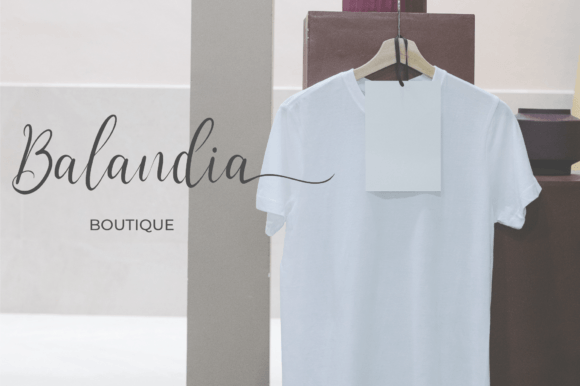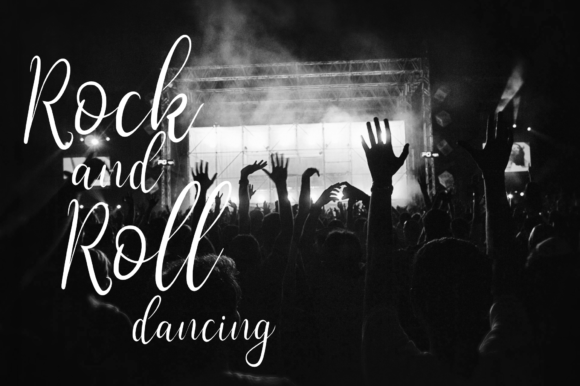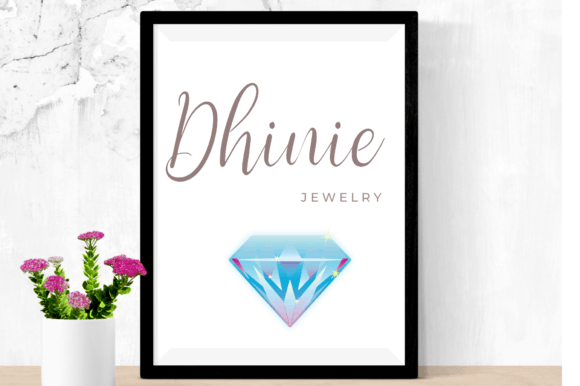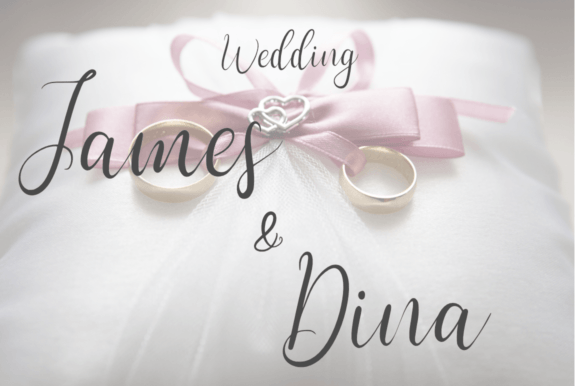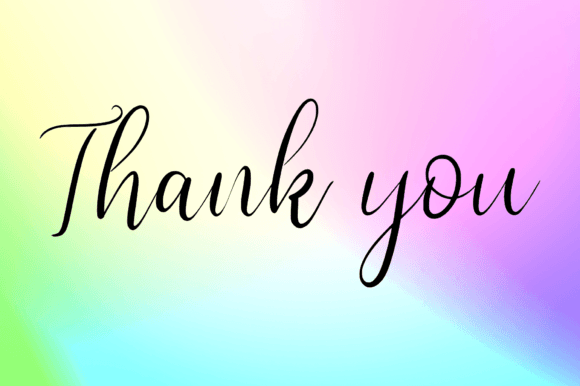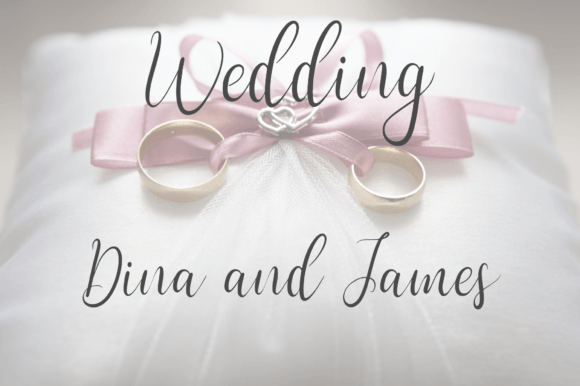
**Introducing Mariana Calligraphy Typeface: Where Modernity Meets Natural Elegance**
Step into the world of timeless elegance with Mariana, a calligraphy typeface that seamlessly blends modern design with the natural beauty of handwritten script. Crafted with meticulous attention to detail, Mariana’s unique form of calligraphy captures a sense of authenticity, making it perfect for a myriad of creative projects that crave a touch of sophistication.
**Natural Handwriting, Modern Design:**
Mariana stands out for its natural handwriting style that effortlessly merges with a modern design aesthetic. The flowing strokes and unique forms of the calligraphy create a sense of authenticity, making it an ideal choice for projects that require a personal and contemporary touch.
**Perfect for Various Creative Projects:**
The versatility of Mariana makes it a go-to choice for various creative projects. Whether you’re designing invitations, crafting logos, working on branding materials, or creating elegant posters, Mariana’s calligraphy adds a layer of refined beauty to your work. It becomes the brushstroke that transforms ordinary designs into extraordinary visual experiences.
**Timeless Elegance in Every Letter:**
Mariana’s calligraphy isn’t just a typeface; it’s a journey into timeless elegance. Each letter is carefully crafted to evoke a sense of grace and sophistication. The natural flow of the script brings a sense of effortlessness, making it visually appealing and captivating.
**Versatile Application:**
From wedding invitations to business cards, Mariana adapts seamlessly to a variety of design contexts. Its versatility allows it to shine in both formal and creative settings, ensuring that your message is communicated with style and flair. The font becomes a versatile tool in your creative arsenal.
**Conclusion: Elevate Your Designs with Mariana**
In conclusion, Mariana is more than a calligraphy typeface; it’s an embodiment of modernity and natural elegance. Whether you’re embarking on a wedding invitation project, designing a brand logo, or creating stunning posters, Mariana elevates your designs with its unique form of calligraphy. Embrace the natural beauty of handwriting combined with a modern touch, and let Mariana be the signature element that transforms your creative vision into a masterpiece.